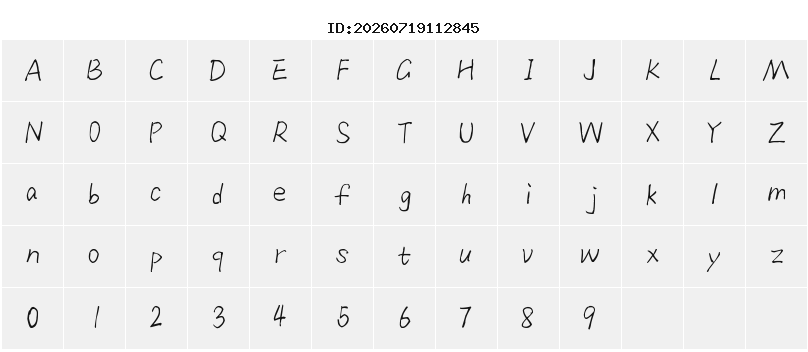
也字工厂梦洄手迹体 Preview
About 也字工厂梦洄手迹体.ttf
也字工厂梦洄手迹体.ttf is a modern, elegant sans-serif font designed for ultimate readability and visual harmony. Perfect for branding, headlines, web design, and print materials.